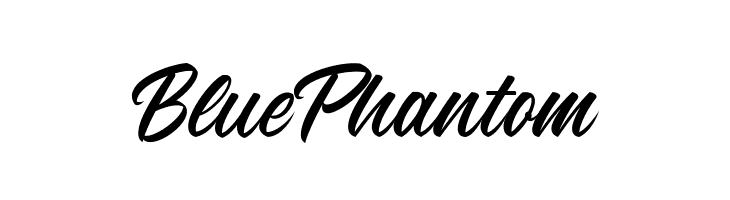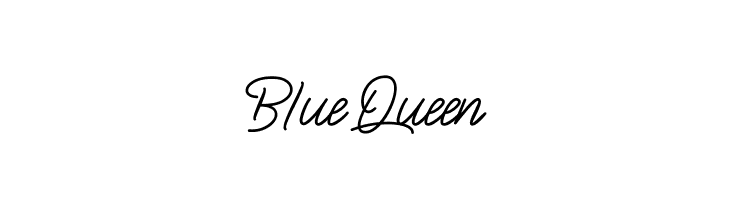
A dynamic, cursive script font with bold, sweeping strokes and high contrast.
An elegant, flowing script font with intricate loops and swirls.
A playful, informal handwritten font with fluid, dynamic strokes.
A flowing, elegant script font with bold, dynamic uppercase and graceful lowercase letters.
A playful and bold handwritten script font with fluid strokes.
A bold, playful handwritten font with a casual and friendly vibe.